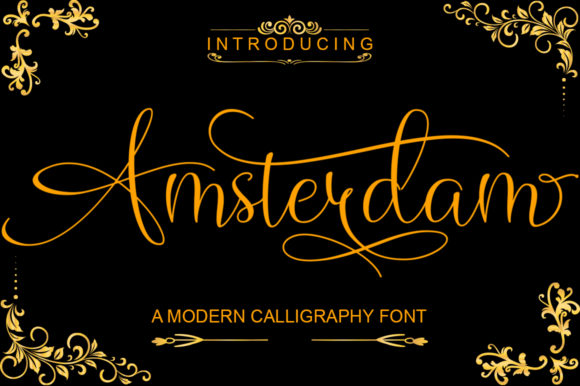
The Amsterdam Font: A Charming and Elegant Addition to Your Design Toolbox
I’ll never forget the design project that led me to discover the Amsterdam font. I was working on a branding project for a boutique hotel, and I was struggling to find the perfect font that captured the essence of their luxurious yet approachable vibe. That’s when I stumbled upon Amsterdam, a round-lettered handwritten font that instantly won me over with its charm and elegance.
So, what makes Amsterdam font so special? Here are a few things that I absolutely love:
- ✨ PUA Encoding: The font is PUA encoded, which means that accessing all the glyphs and swashes is a breeze!
- ✅ Varying Baseline: The font features a varying baseline, which gives it a delightfully organic feel.
- ✅ Smooth Lines and Gorgeous Glyphs: The lines are smooth, and the glyphs are stunning – it’s a joy to work with!
- ✅ Stunning Alternates: The font comes with gorgeous alternates, which allow you to mix things up and create unique designs.
Of course, no font is perfect, and Amsterdam has a few quirks to be aware of:
- 🤔 Limited Use on Small Sizes: While the font looks amazing at larger sizes, it can get a bit lost at smaller sizes – so use it wisely!
- ⚠️ Some Swashes May Not Work Well in All Contexts: A few of the swashes may not work well in all design contexts, so be sure to experiment and find the right fit.
The Story Behind Amsterdam Font
While the true story behind Amsterdam font may be a mystery, it’s easy to imagine that it was created by a designer who fell in love with the charming streets of Amsterdam. Perhaps they were inspired by the city’s elegant canals, historic architecture, and vibrant cultural scene. Whatever the inspiration, the result is a font that’s equal parts charming and elegant – perfect for designs that need a touch of sophistication.
| Q: Is Amsterdam font suitable for body text? | A: While Amsterdam font is beautiful, it’s best suited for headlines, titles, and short paragraphs. For body text, you may want to choose a font with better readability. |